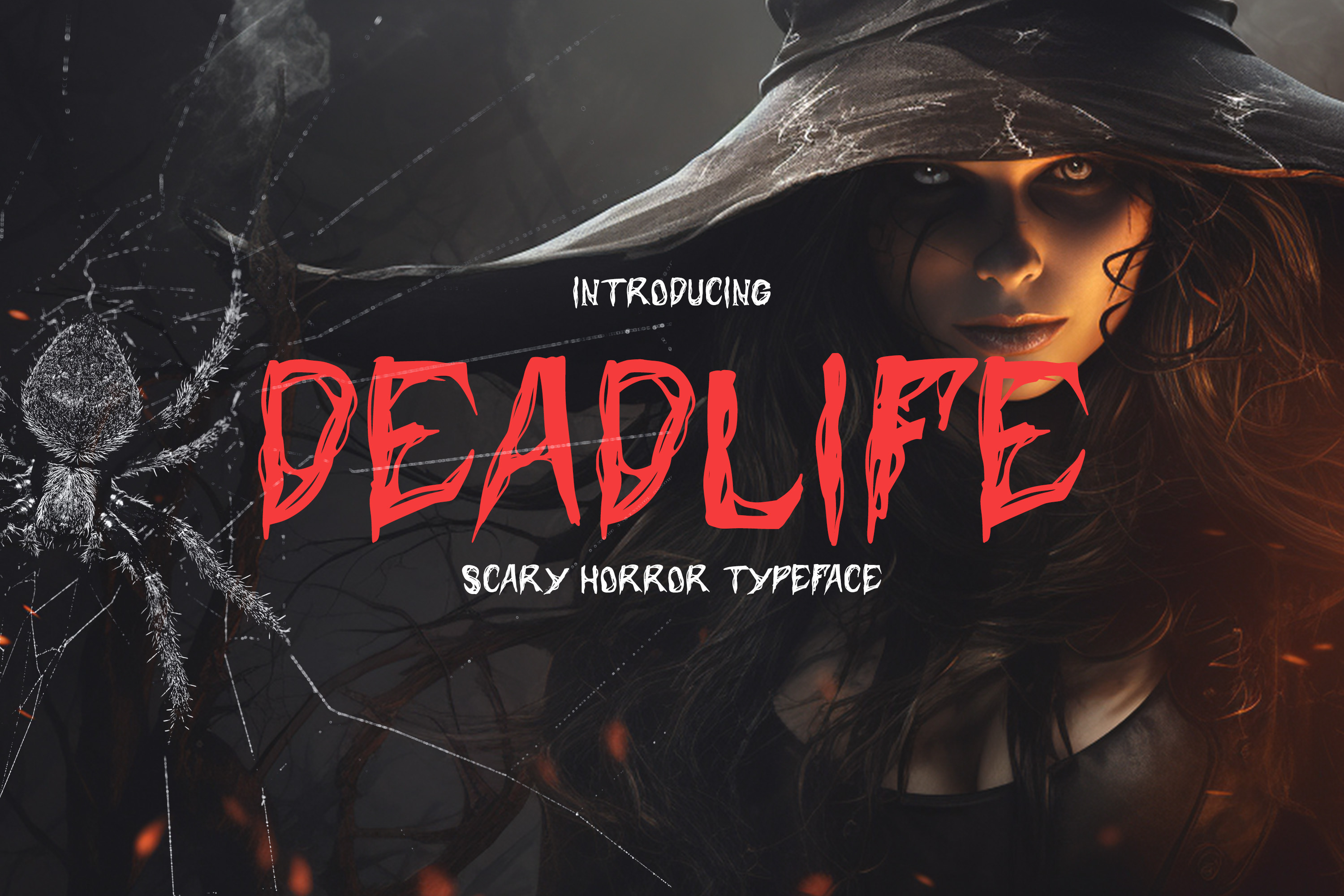
DeadLife - Horror Typeface
Deadlife is a chilling and haunting font that embodies the essence of horror. With its ominous and eerie appearance, this font is designed to send shivers down your spine and evoke a sense of dread. The letters are twisted and contorted, resembling something out of a nightmare, with jagged edges and unsettling shapes that make it perfect for creating a macabre atmosphere in your designs.
- Uppercase (Allcaps)
In summary, Deadlife is a font that encapsulates the essence of horror, with its sinister and unsettling design that is perfect for adding an eerie and foreboding touch to your projects.